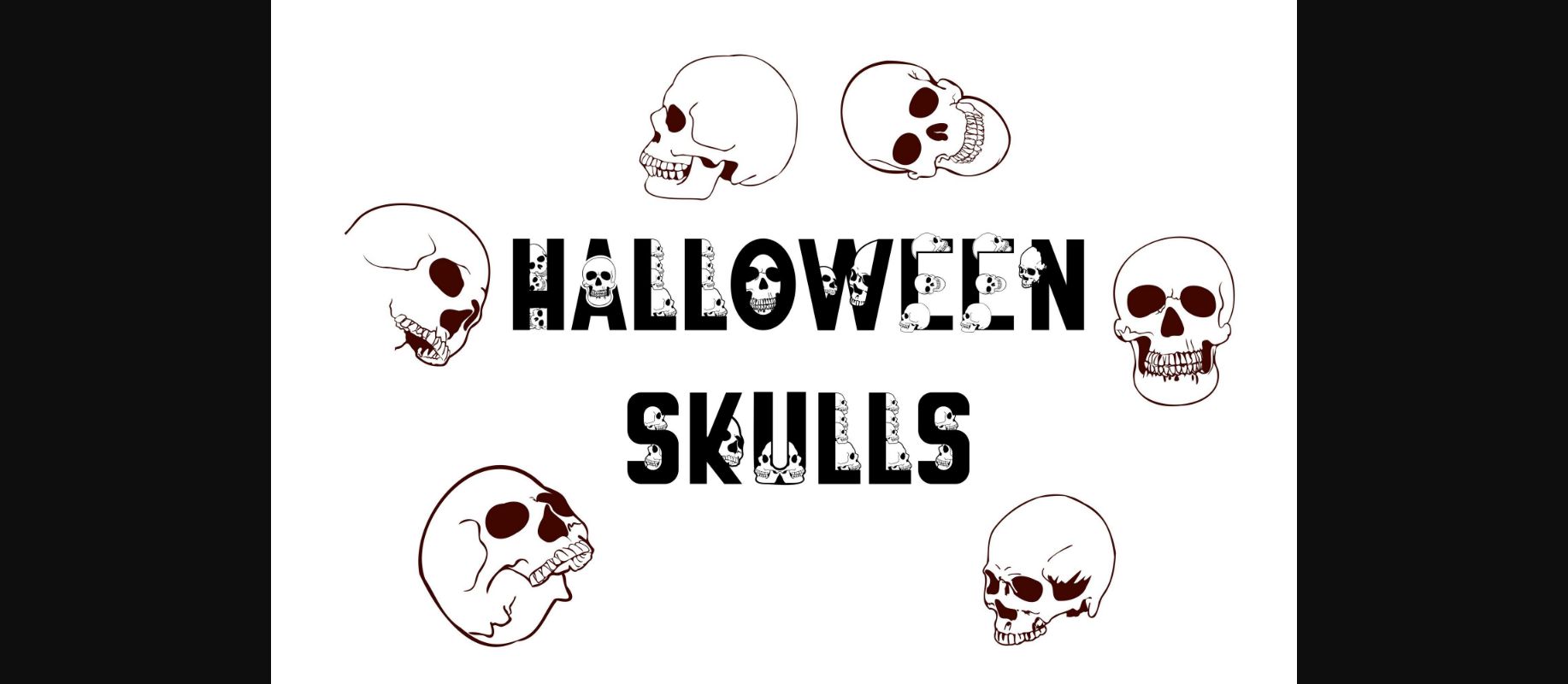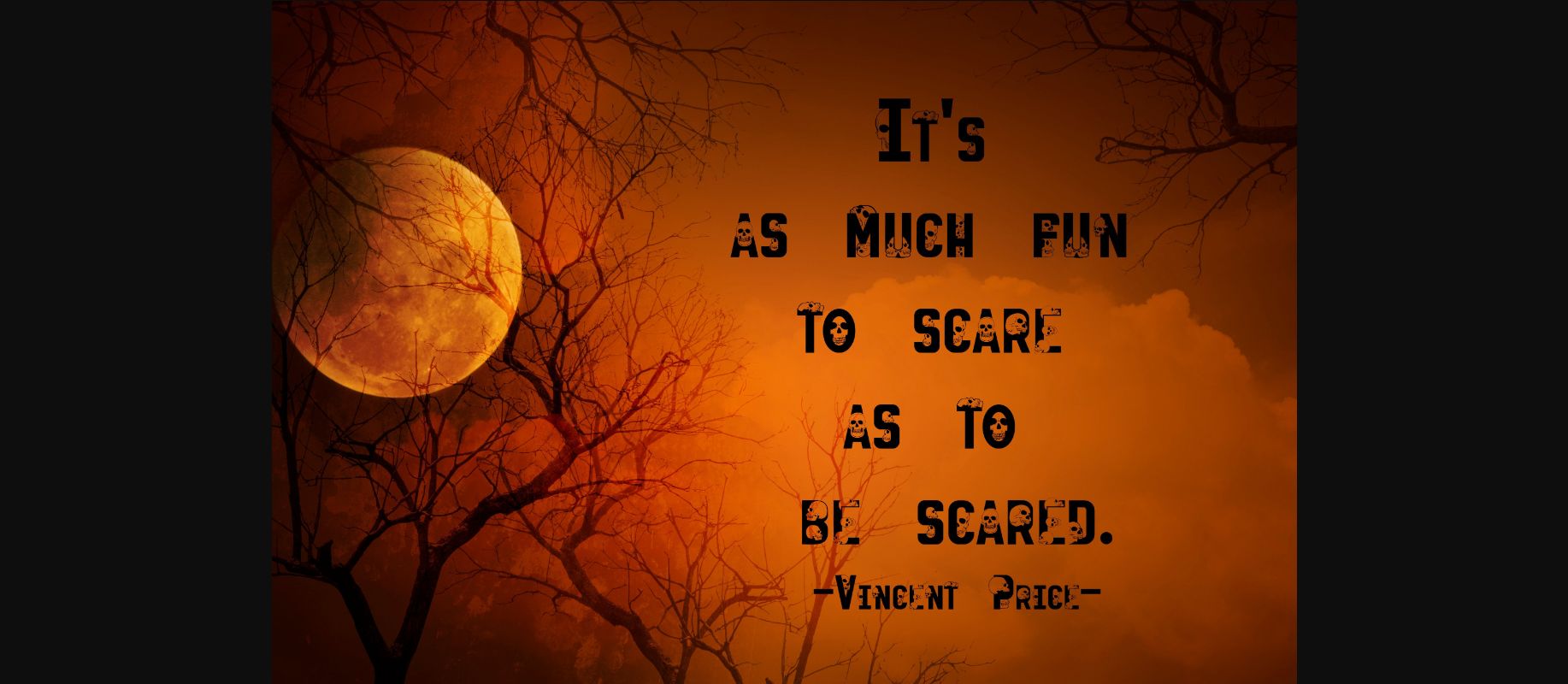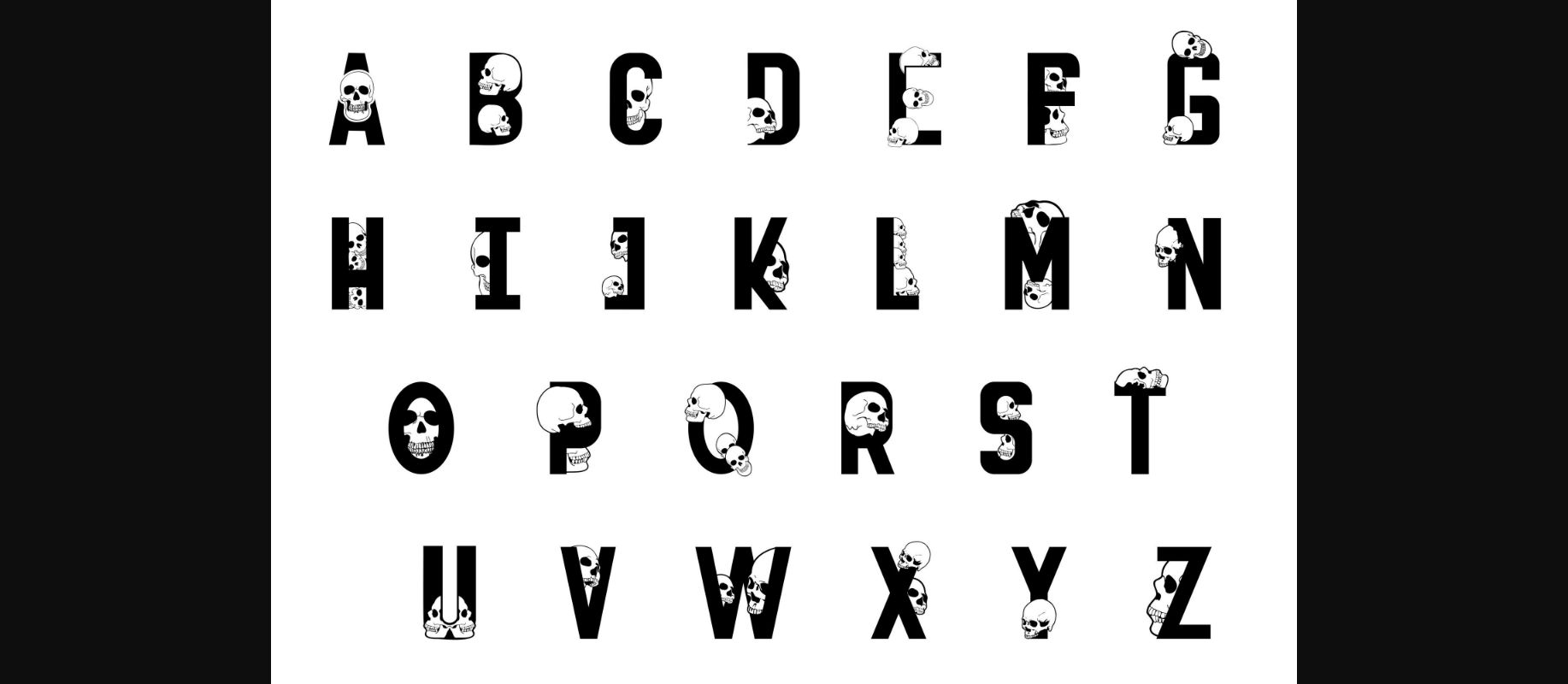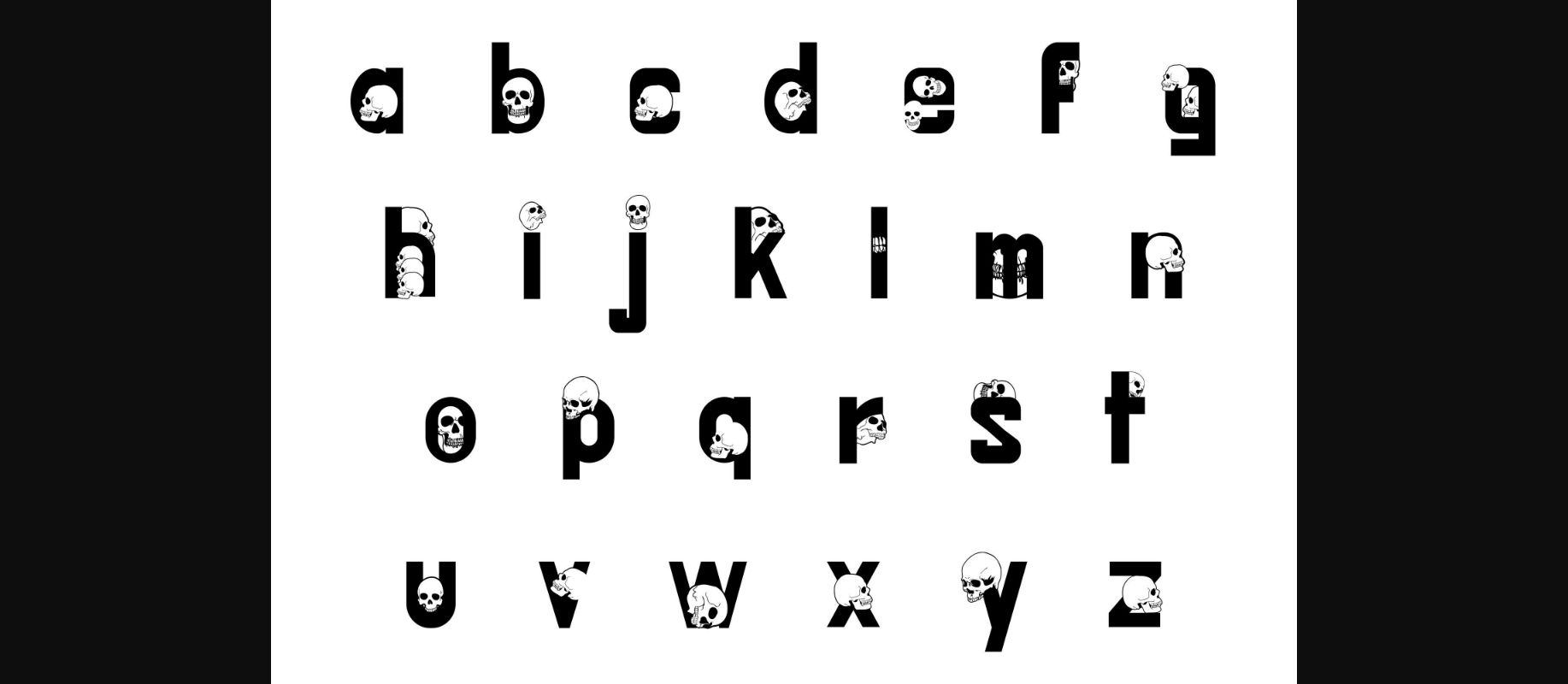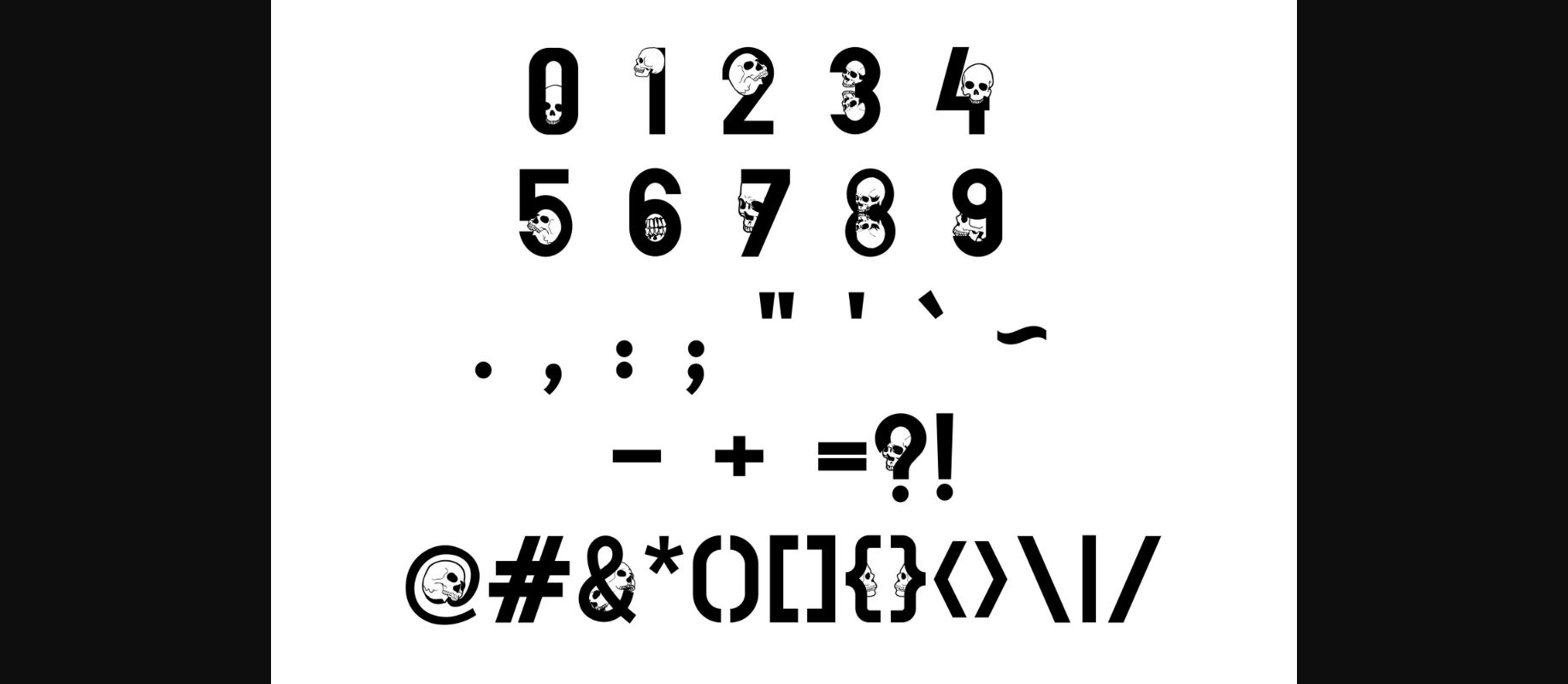
Halloween Skulls Font
About Halloween Skulls Font
Halloween Skulls is a creepy and scary decorative font. An ideal display font for Halloween, T-shirts, or any spooky project. Add it confidently to your crafty ideas and you will love the results!